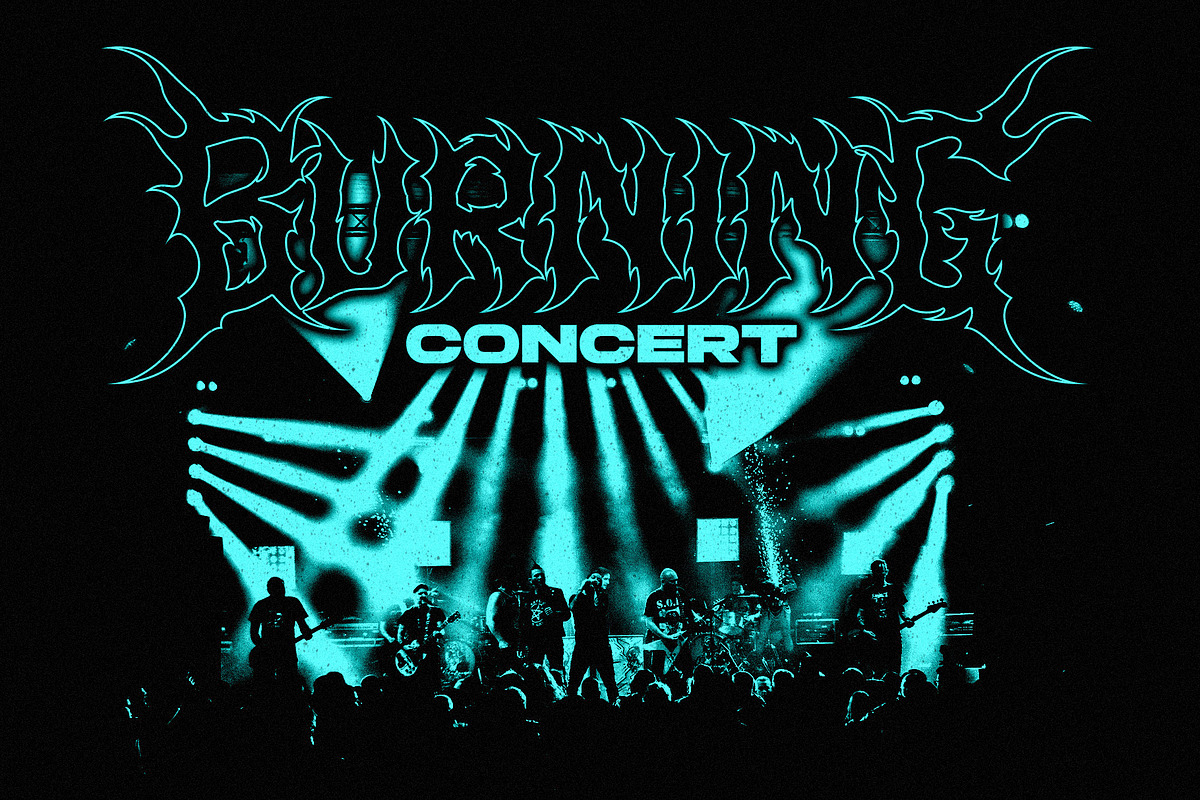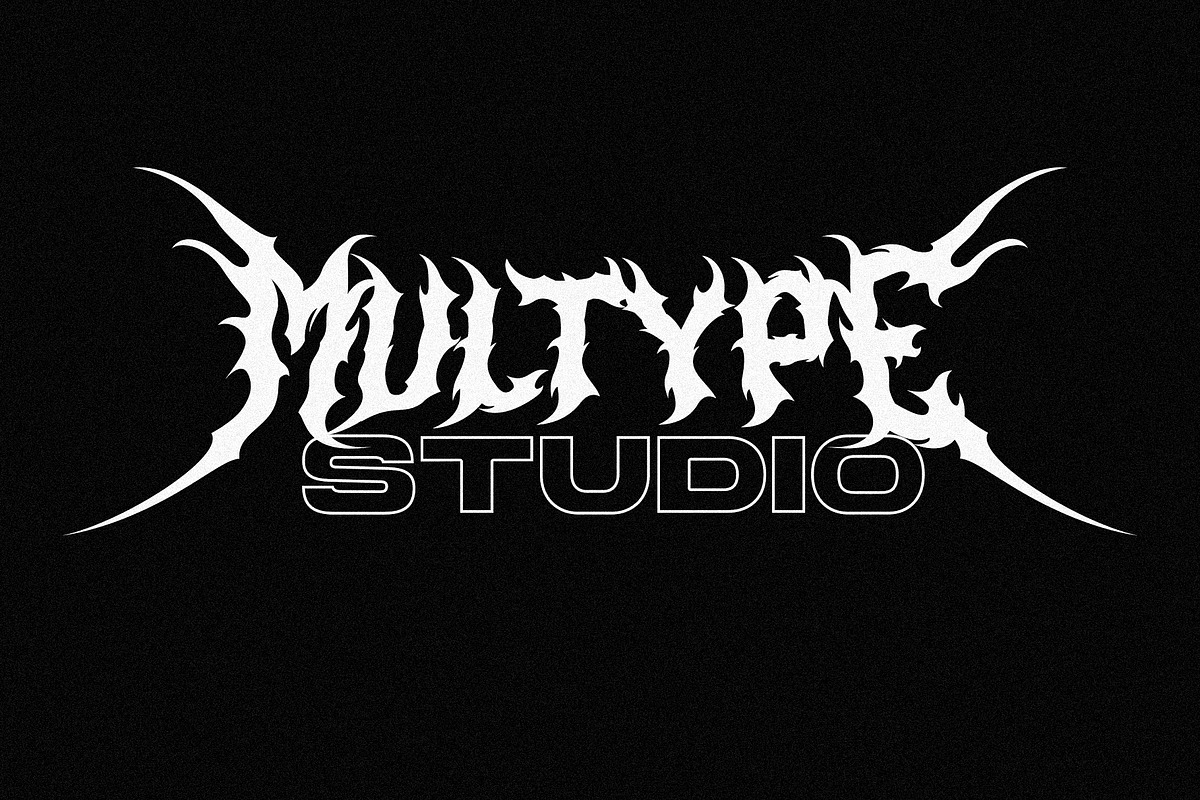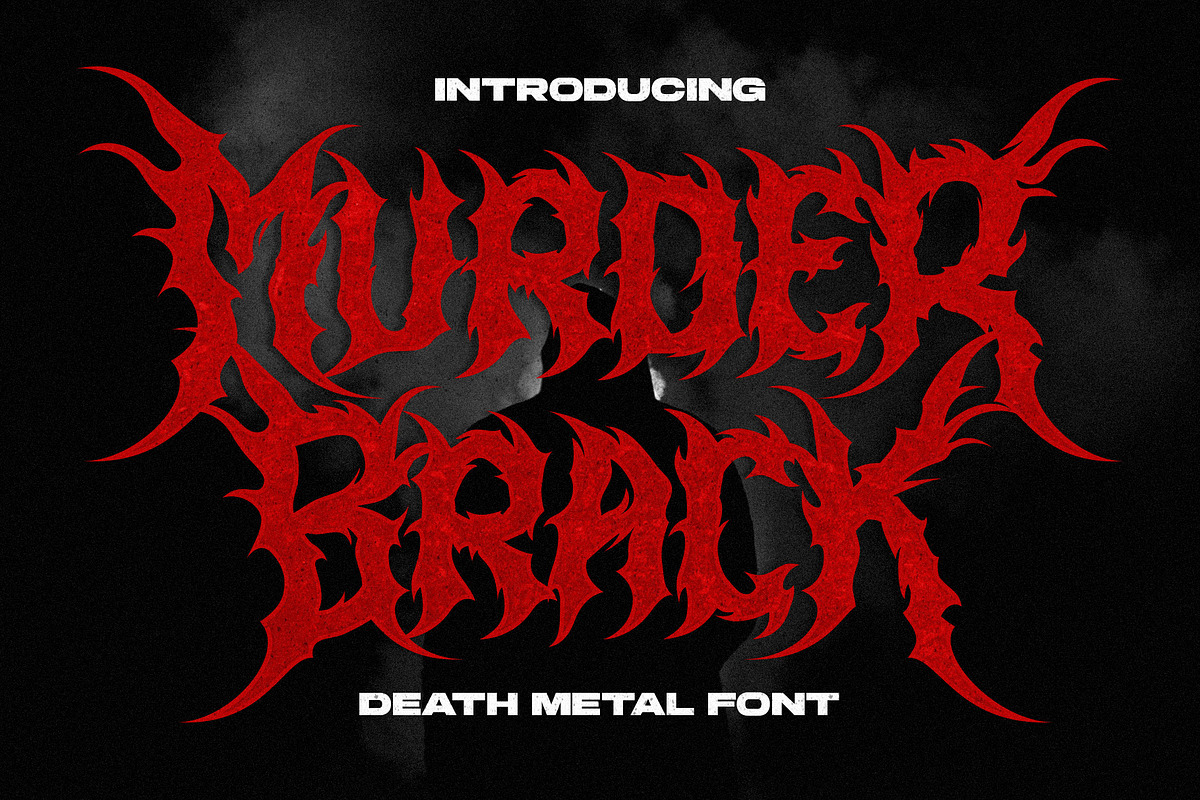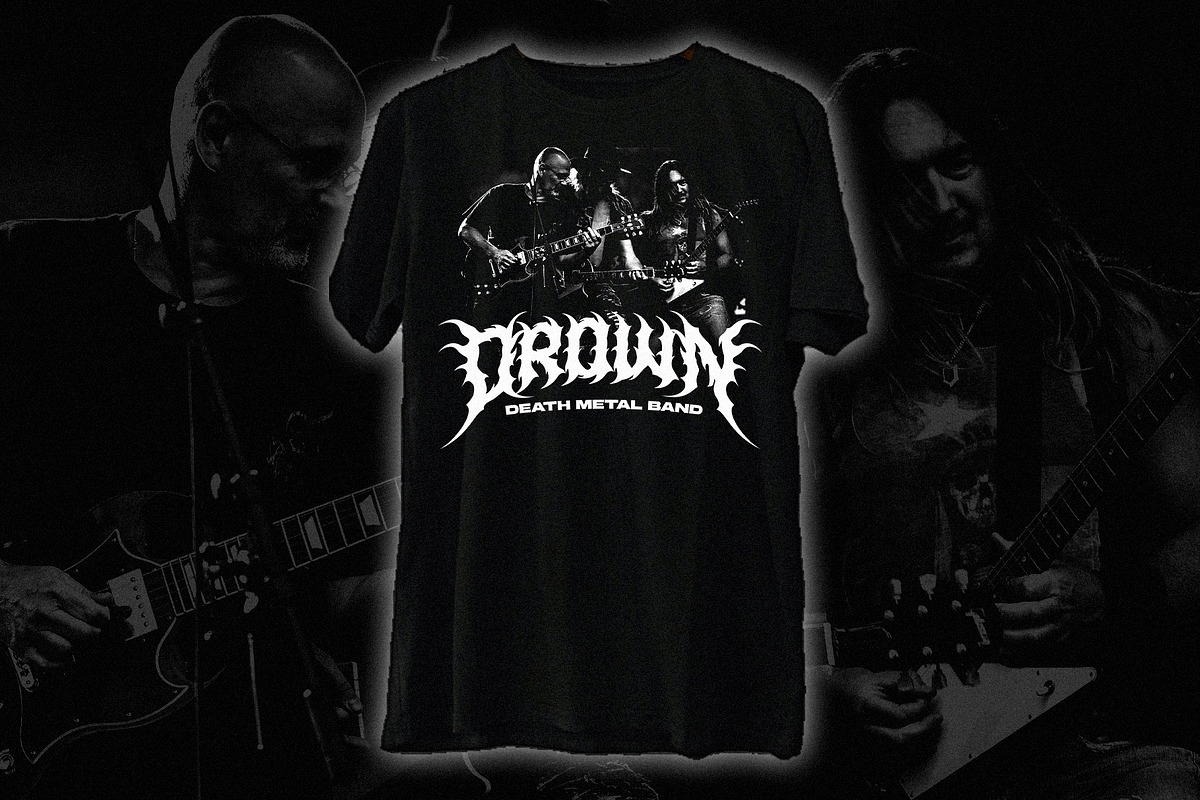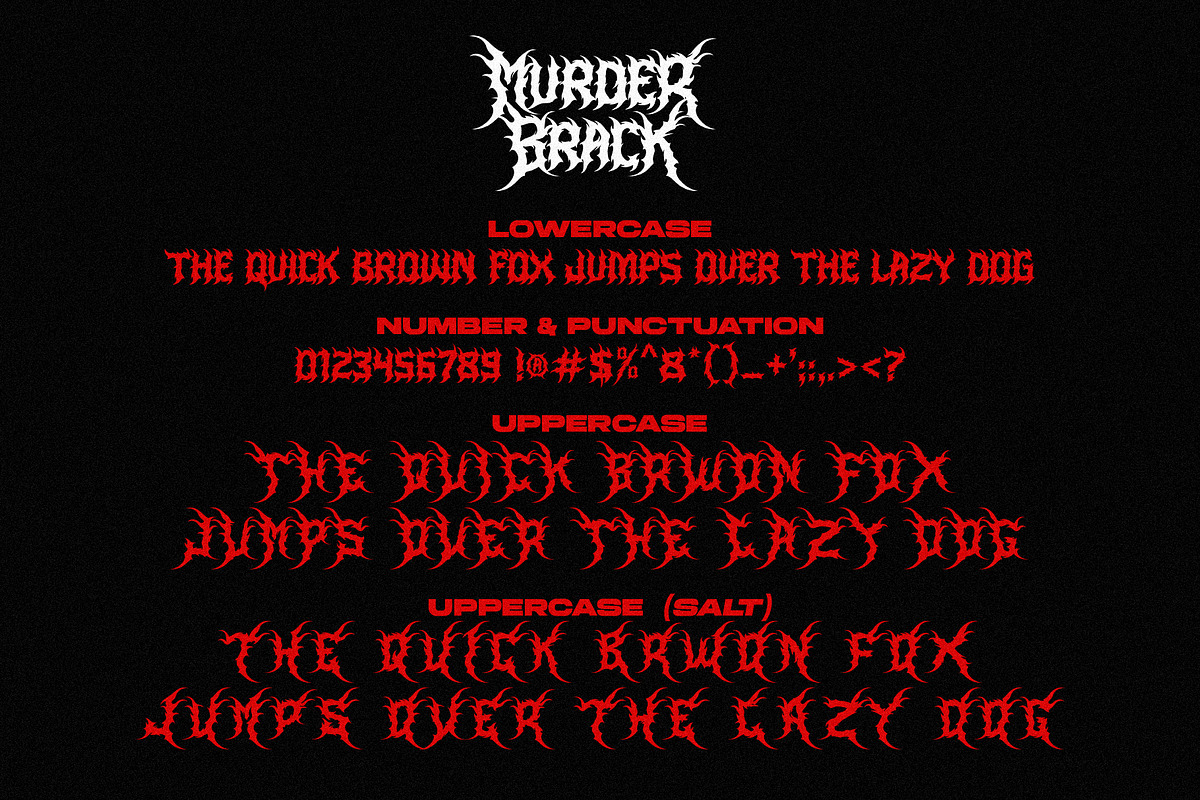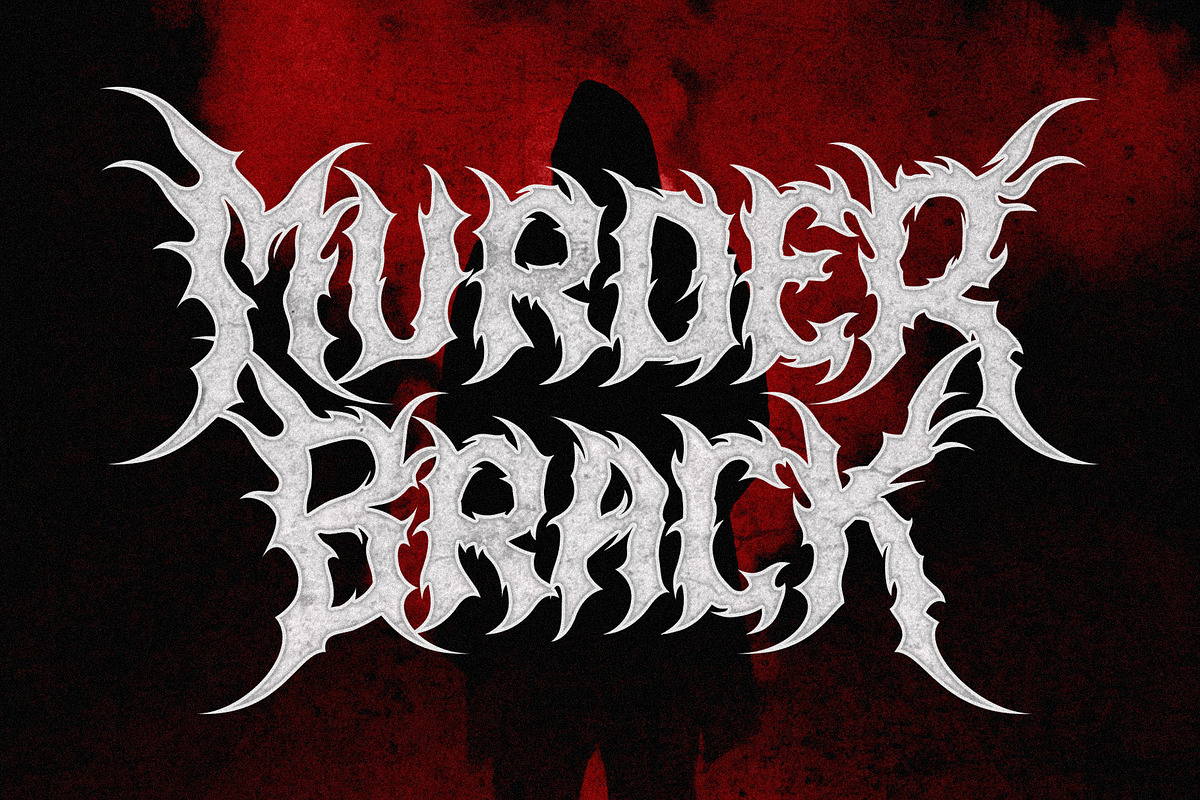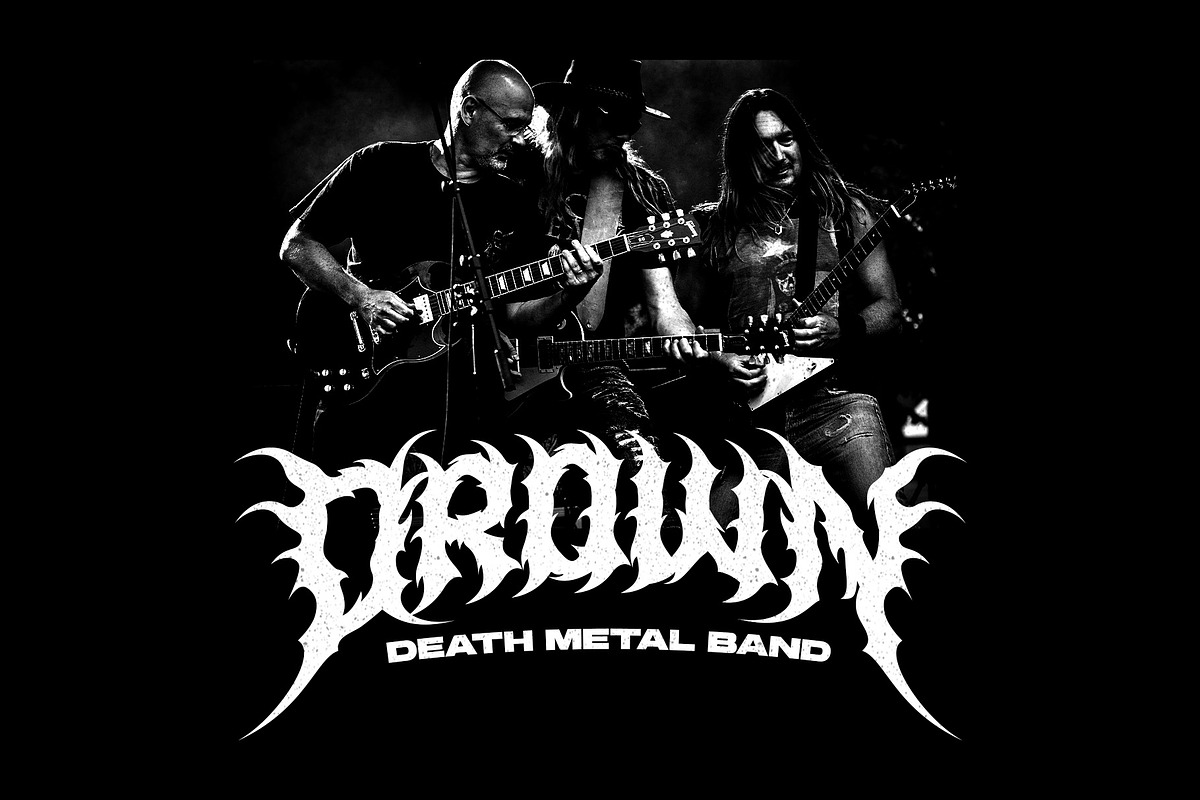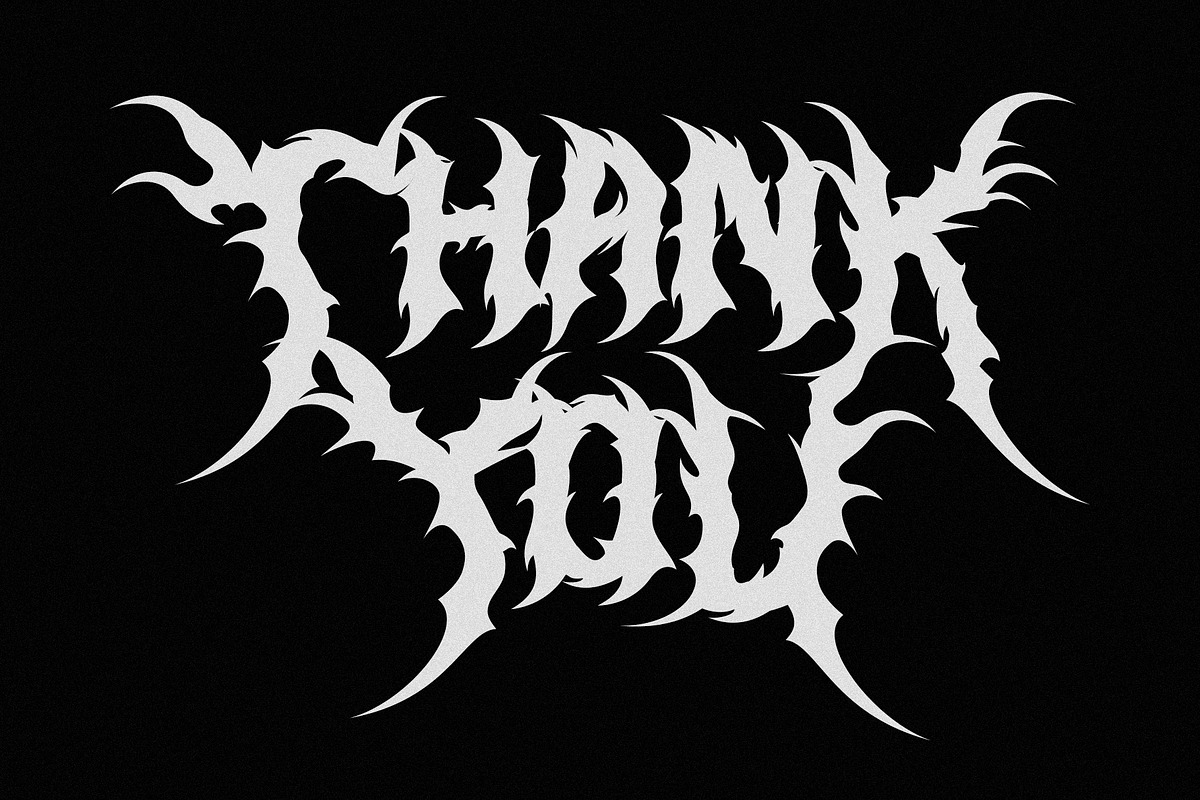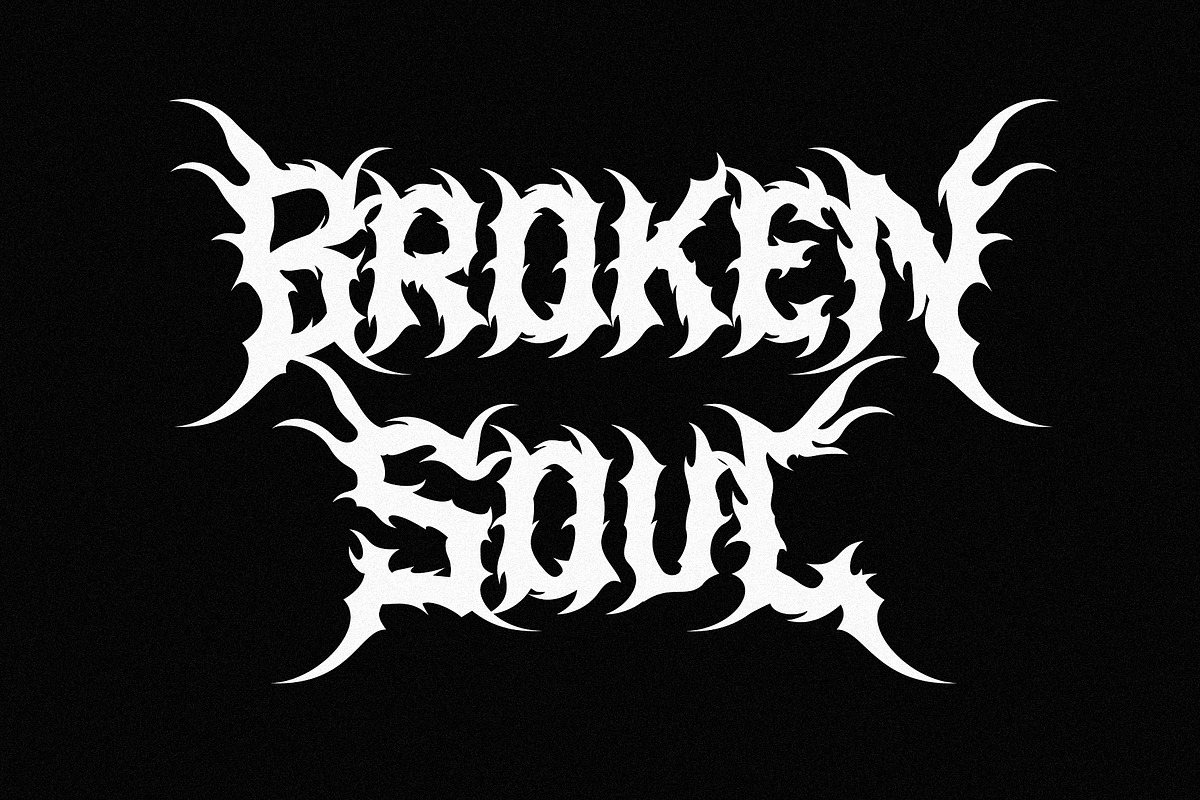
Murder Brack - Death Metal Font
Murder Brack is a font with a death metal theme. Be an alternative to make logos, merch, or anything with the nuances of death metal music. This font perfect for logotype death metal band, logotype death metal brand, product, merchandise death metal band, death metal band covers, rock events, rock posters, rock magazine covers, branding, product design, labels and other creative project.